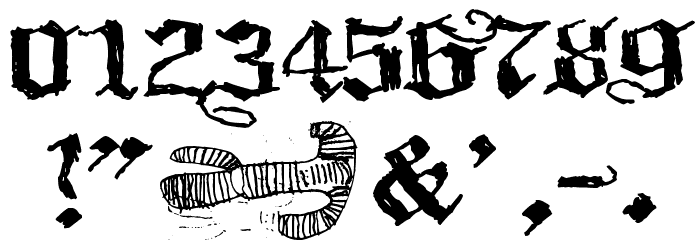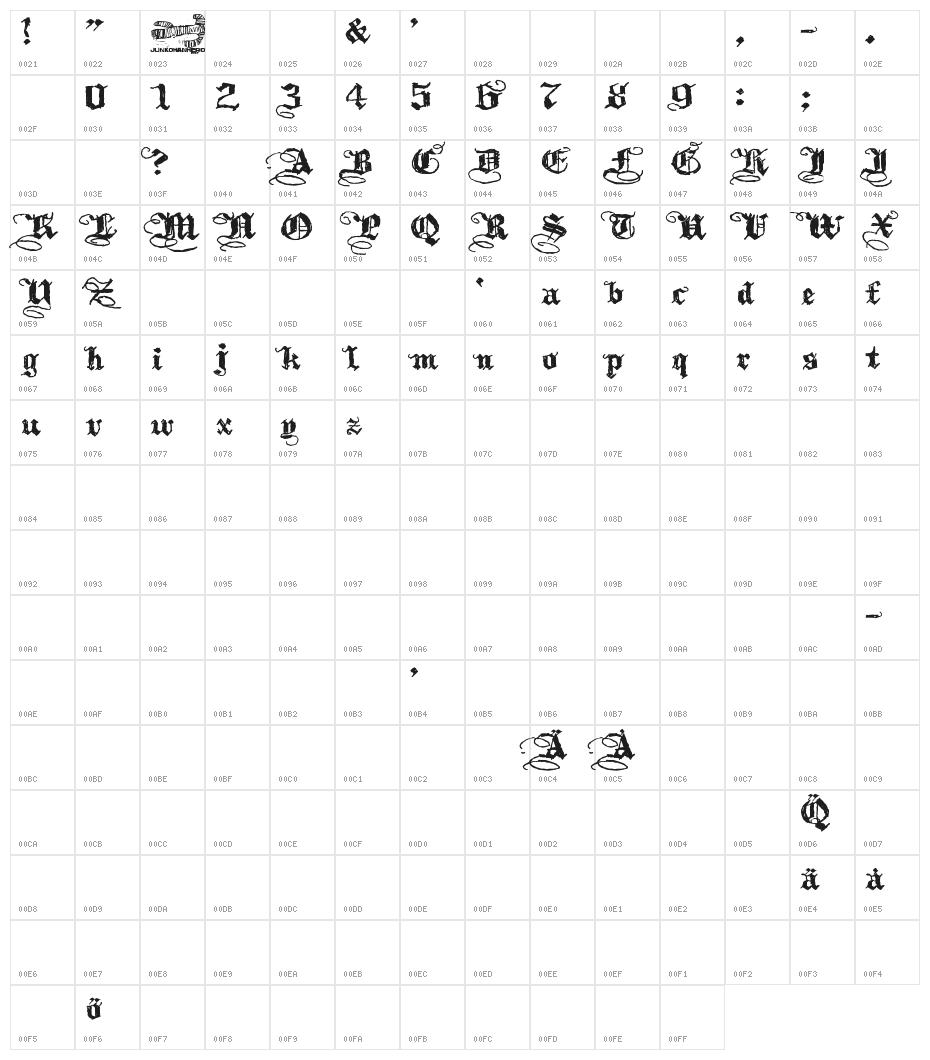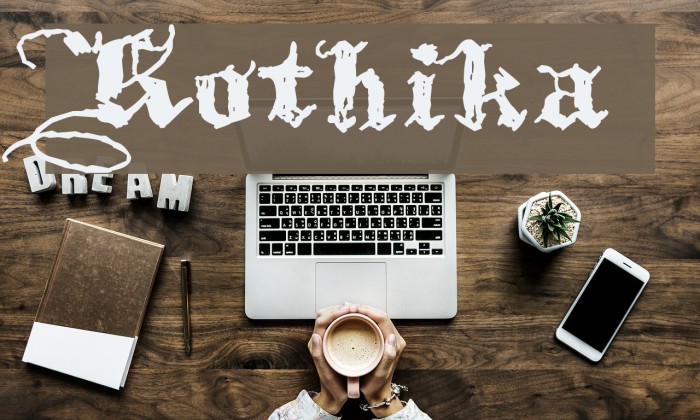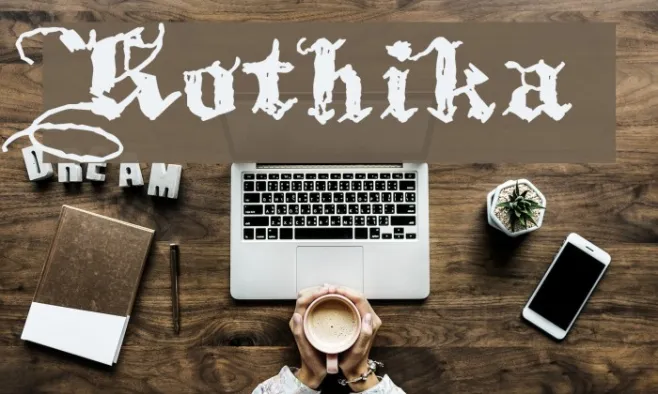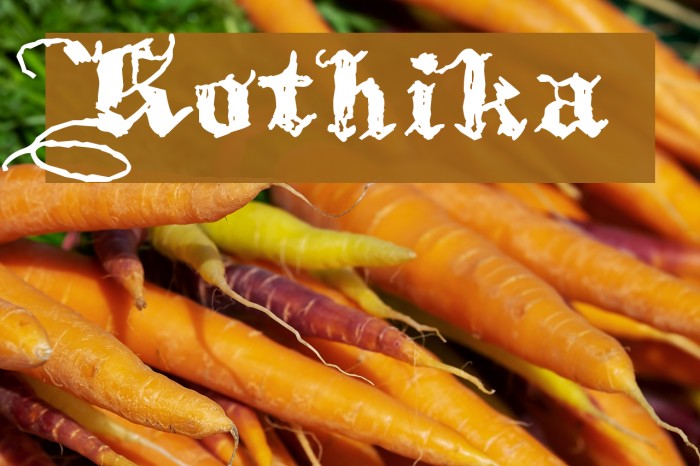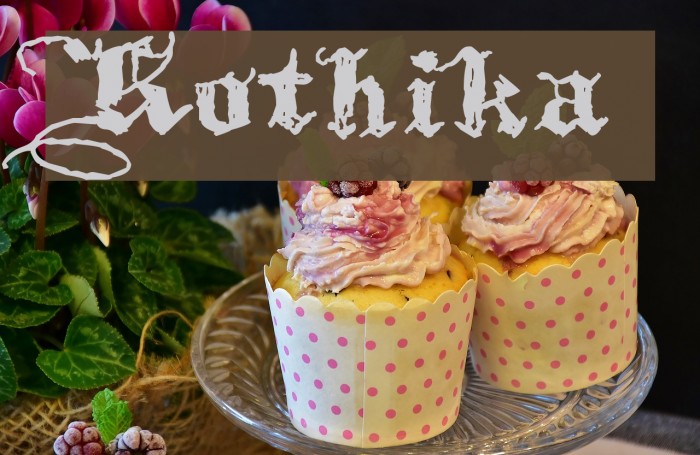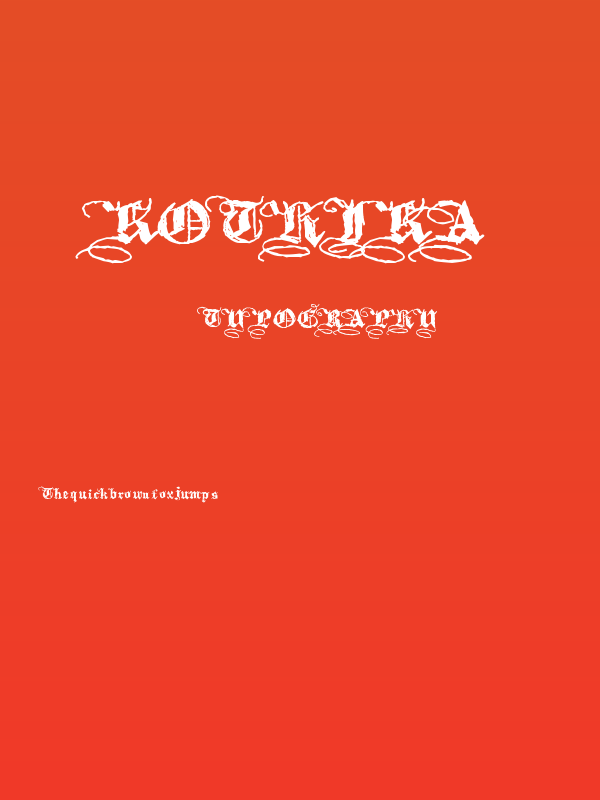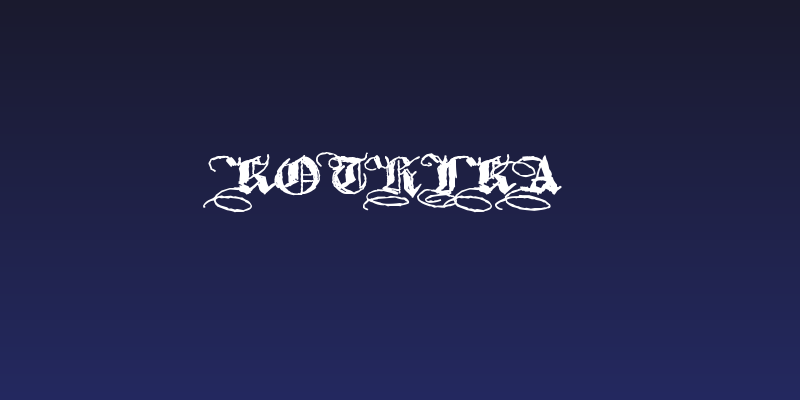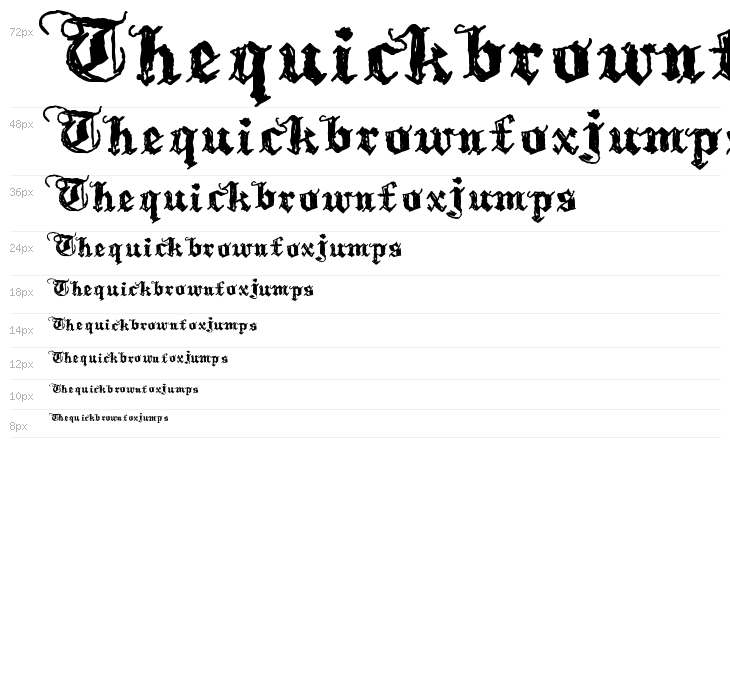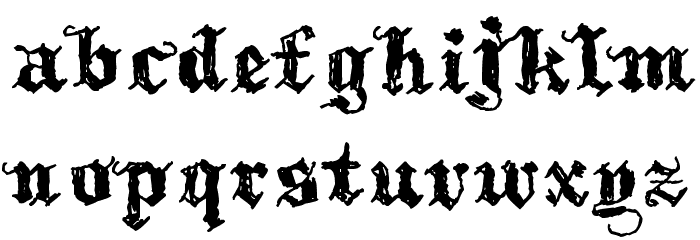
Kothika Font
Kothika Description
This font exhibits a classic blackletter style, characterized by its ornate and intricate design. The letters are bold and heavily stylized, with dramatic flourishes and sharp angles that give it a medieval and gothic appearance. The uppercase letters are particularly elaborate, featuring additional decorative elements that enhance their visual impact. The lowercase letters maintain the same level of detail, ensuring consistency throughout the typeface. Numbers and special characters are designed to match the overall aesthetic, making this font suitable for projects that require a historical or traditional feel.
| Proposed Projects | Ideal for historical documents, invitations, posters, and branding that require a traditional or gothic touch. |